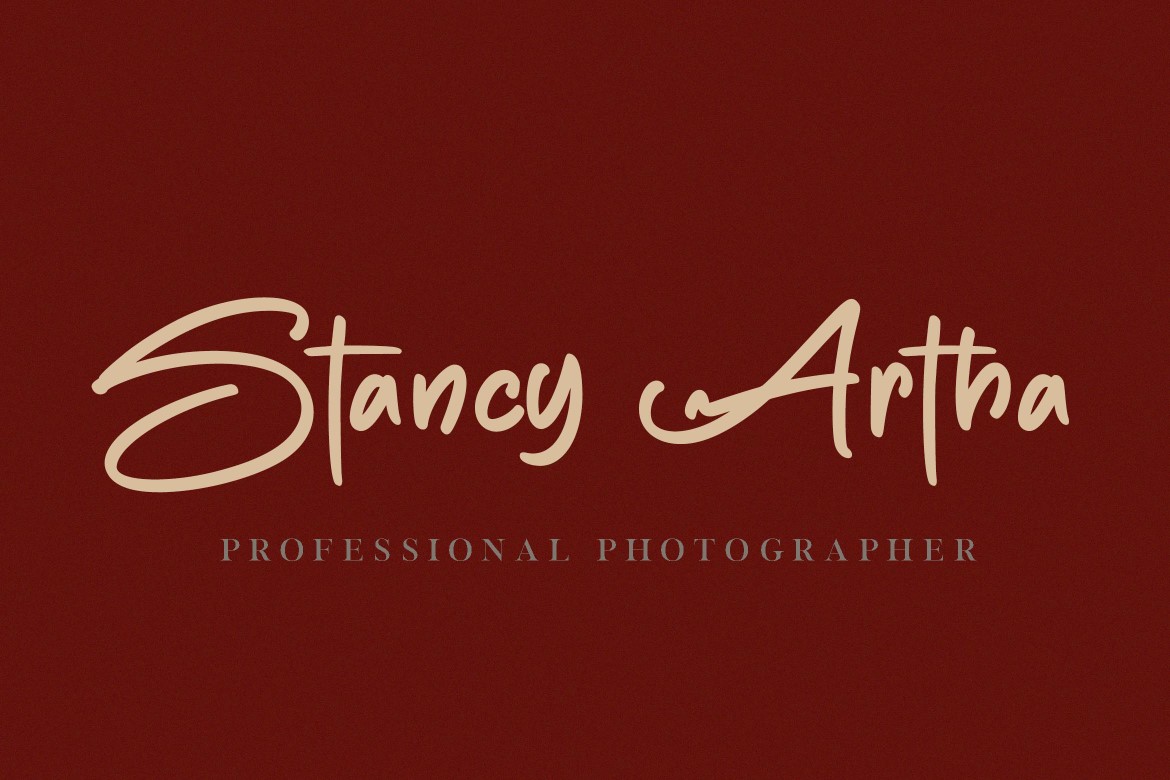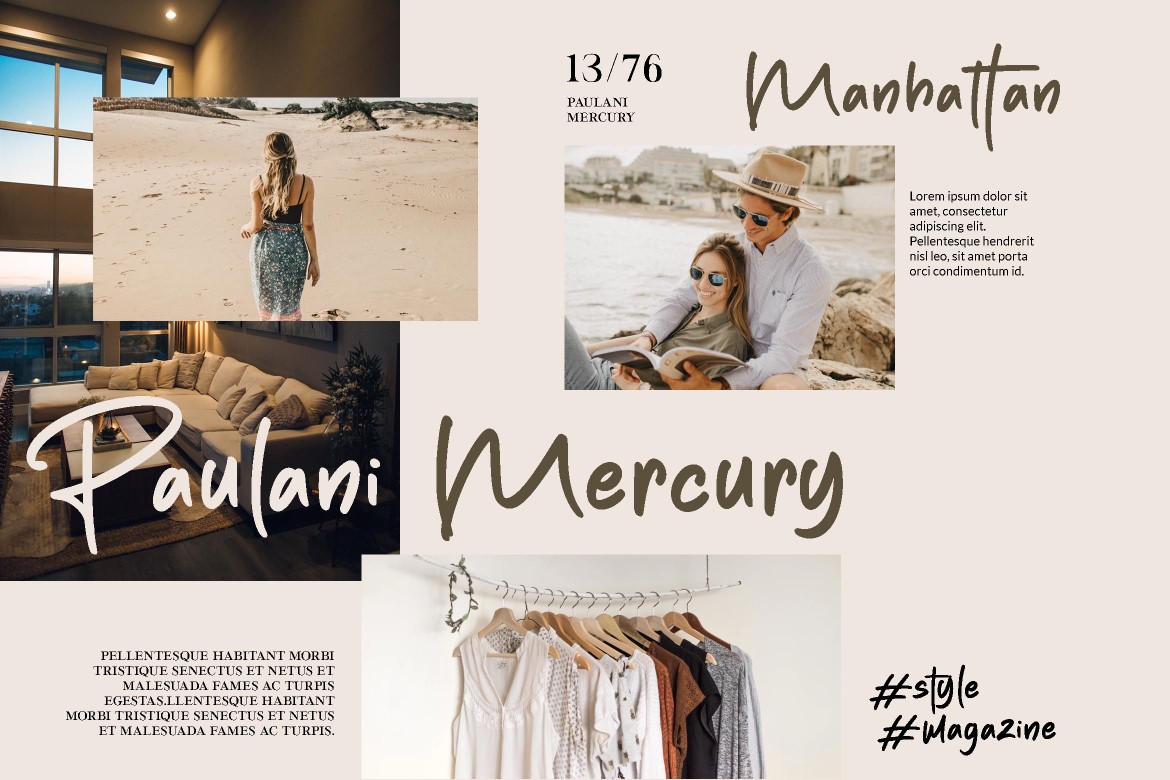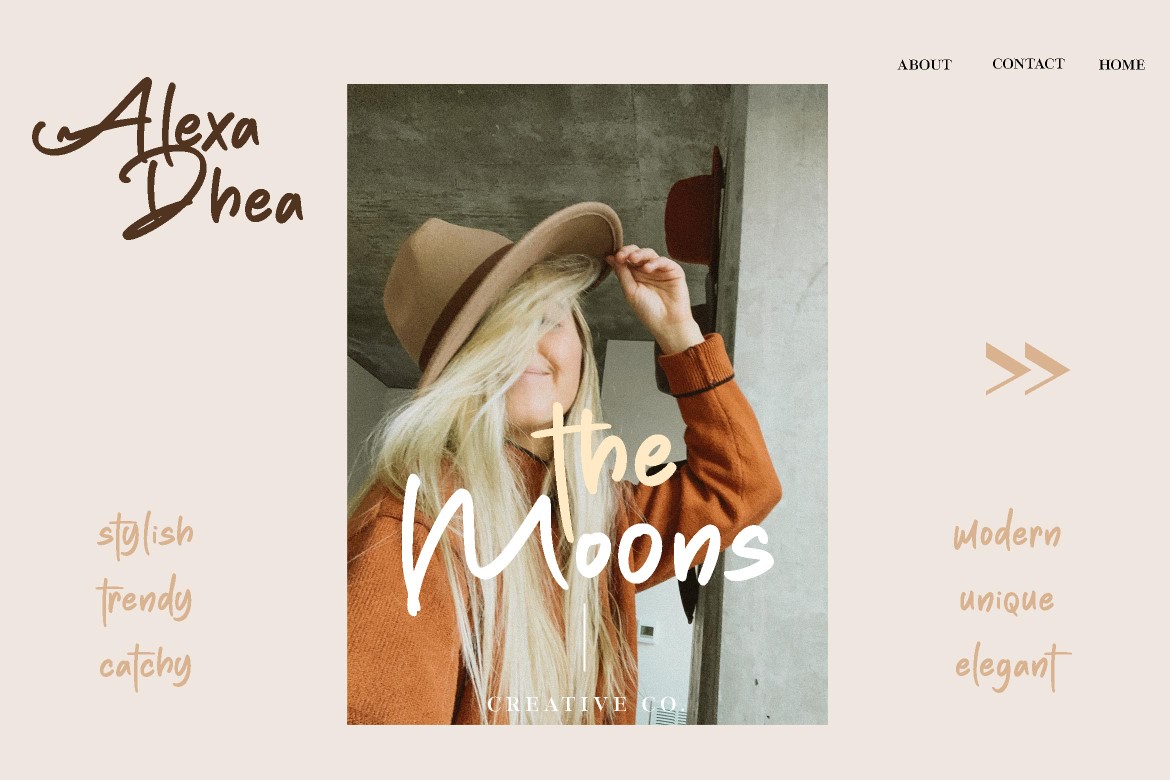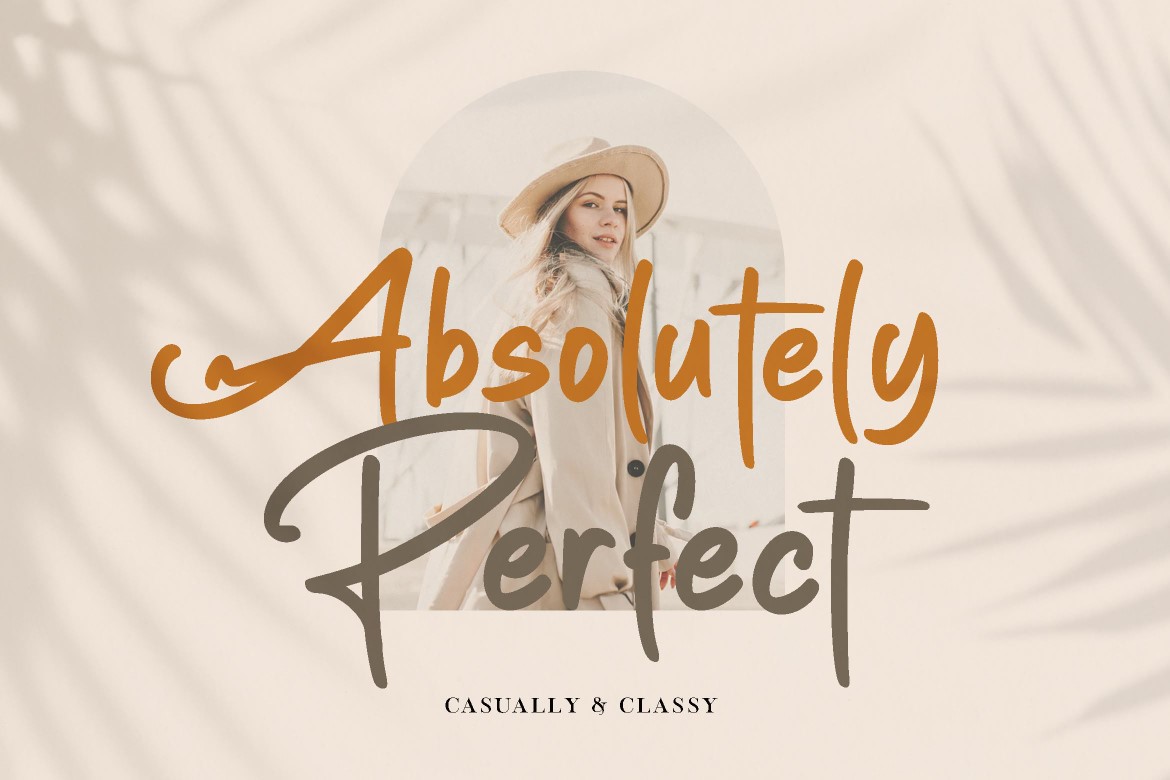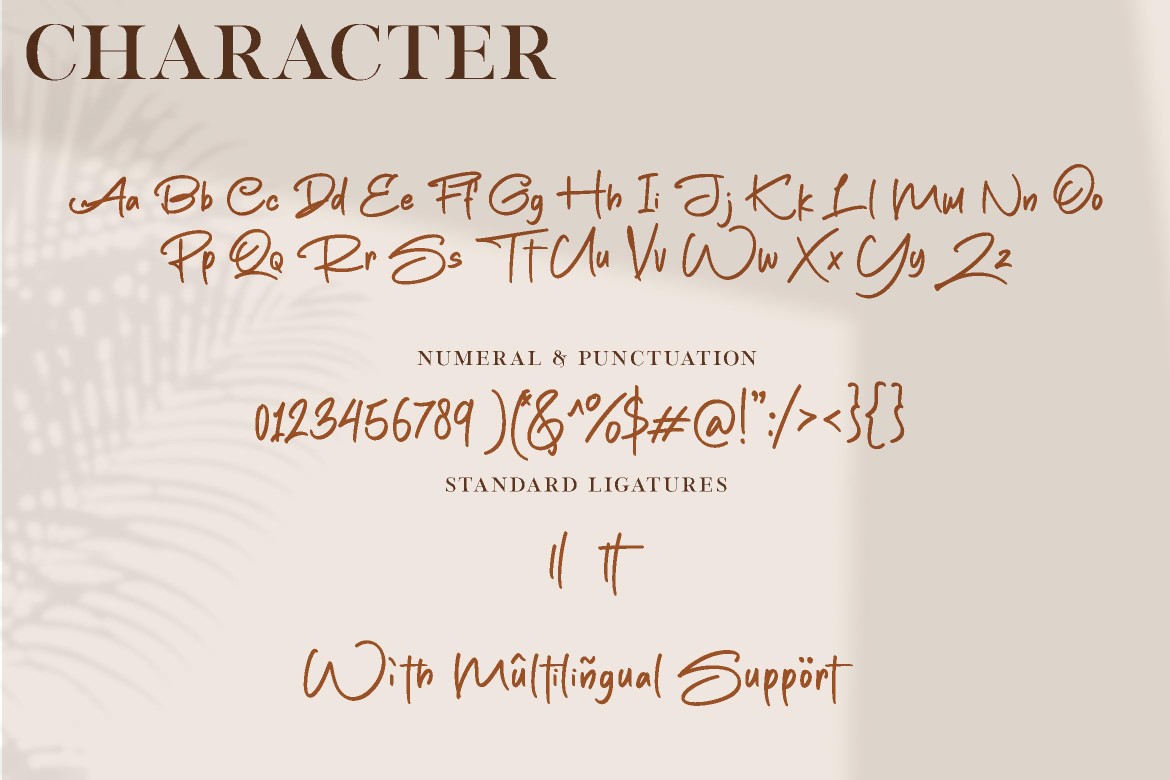
Paul Jackson
The Paul Jackson font is an elegant signature script font that exudes sophistication and style. Its smooth, flowing lines mimic the appearance of hand-drawn calligraphy, giving it a natural, handwritten feel. The font features a balance between bold and thin strokes, providing a modern yet classic aesthetic that works well for:
• Logos
• Wedding invitations
• Luxury branding
• Personalized stationery
• Social media graphics
The graceful curves and refined look of Paul Jackson make it perfect for projects that require a personal, stylish, and professional touch. This font is ideal for designers who want to add an authentic handwritten charm to their creations.